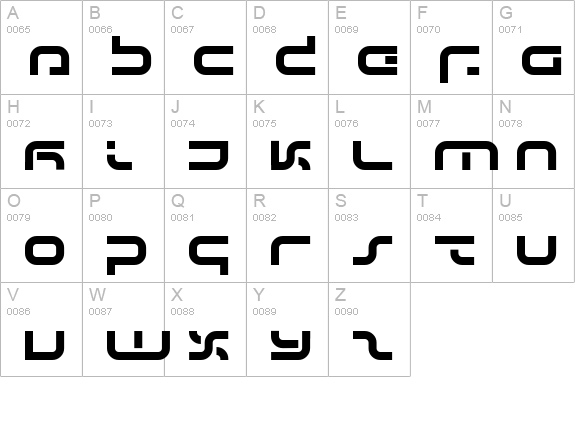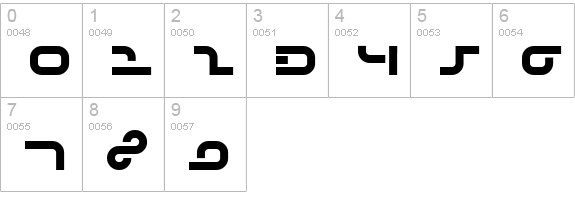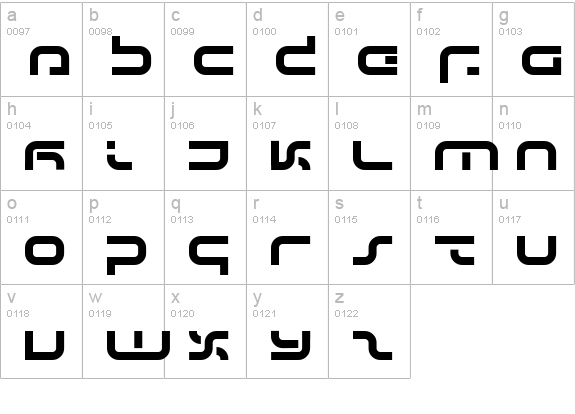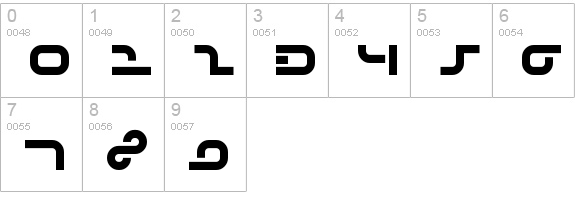
IJ19 Font Details
Introducing IJ19, a remarkable font that combines elegance and versatility in perfect harmony. With its sleek and modern design, IJ19 is the perfect choice for all your creative projects, whether it's designing a logo, crafting a captivating headline, or adding a touch of sophistication to your print materials. What sets IJ19 apart is not only its stunning aesthetics but also its accessibility. This incredible font is available for free, allowing you to elevate your designs without breaking the bank. Say goodbye to expensive font licenses and hello to endless possibilities with IJ19. Downloading IJ19 is a breeze, as it is freely available at FontsMarket.com. This user-friendly platform ensures a seamless experience, granting you instant access to this exquisite font with just a few clicks. It's never been easier to enhance your designs with IJ19's unique charm. The versatility of IJ19 knows no bounds. Its clean lines and balanced proportions make it suitable for a wide range of applications, from web design to branding and everything in between. Whether you're aiming for a sophisticated and professional look or a trendy and modern vibe, IJ19 has got you covered. With IJ19 in your design arsenal, you can effortlessly bring your creative visions to life. Its extensive character set includes various weights and styles, allowing you to experiment and find the perfect fit for any project. Enhance your typography game and captivate your audience with the stunning beauty of IJ19. So why wait? Join the countless designers who have already fallen in love with IJ19 and experience the magic it brings to your designs. Download this exceptional font for free at FontsMarket.com and let your creativity soar to new heights. Unleash the power of IJ19 and transform your designs into works of art.